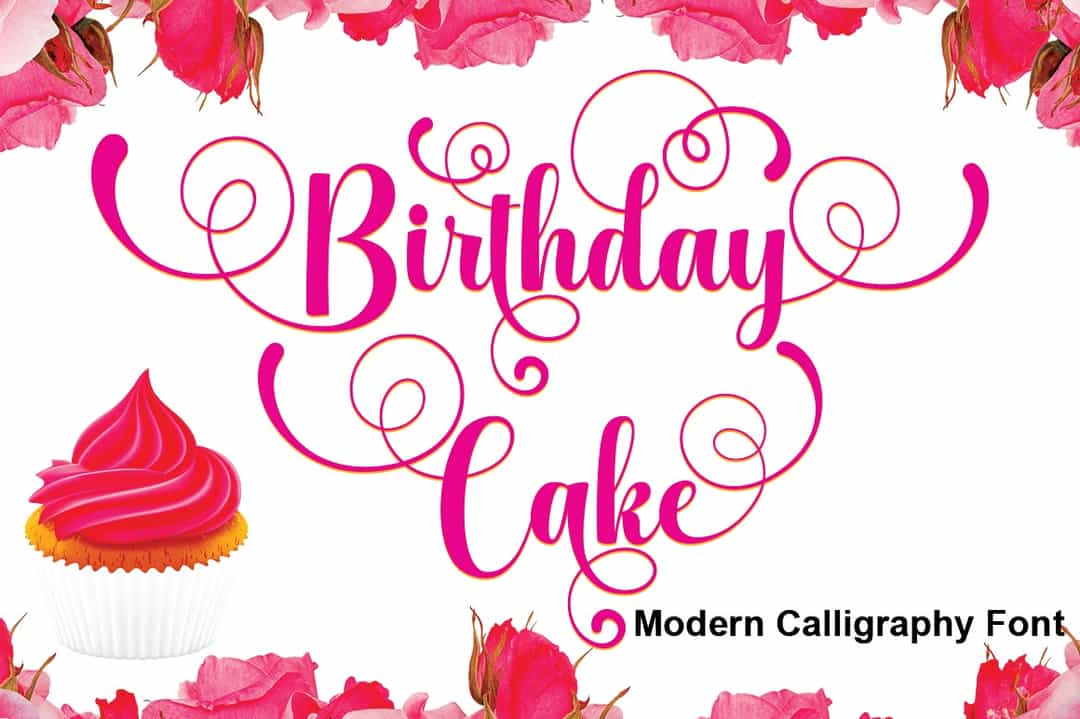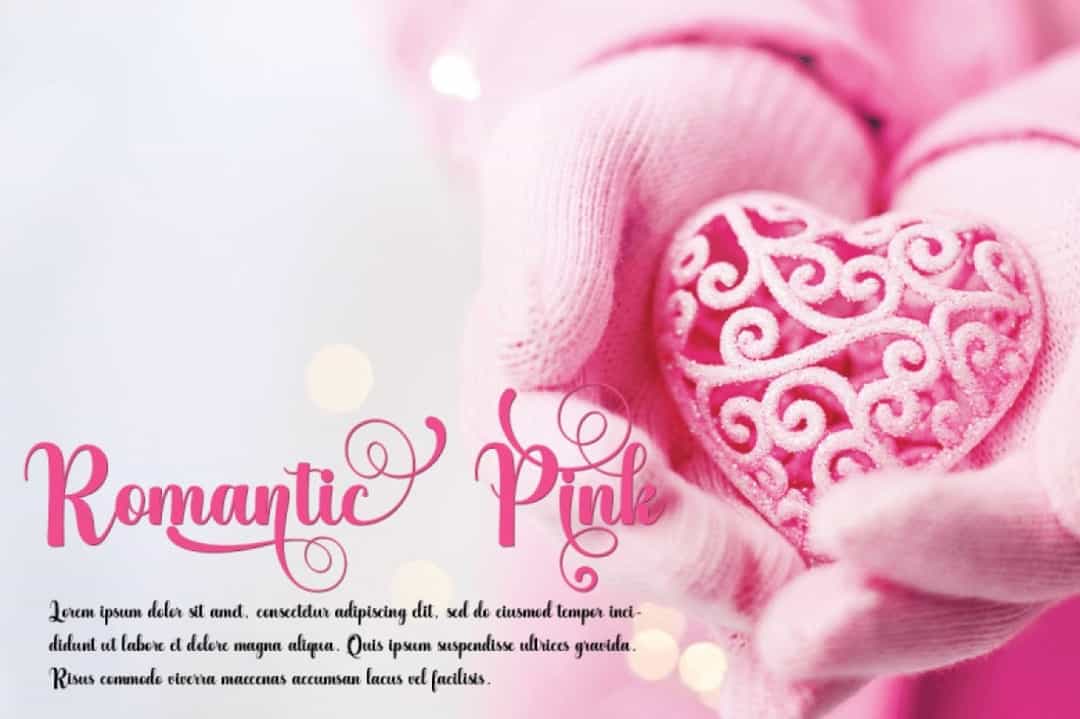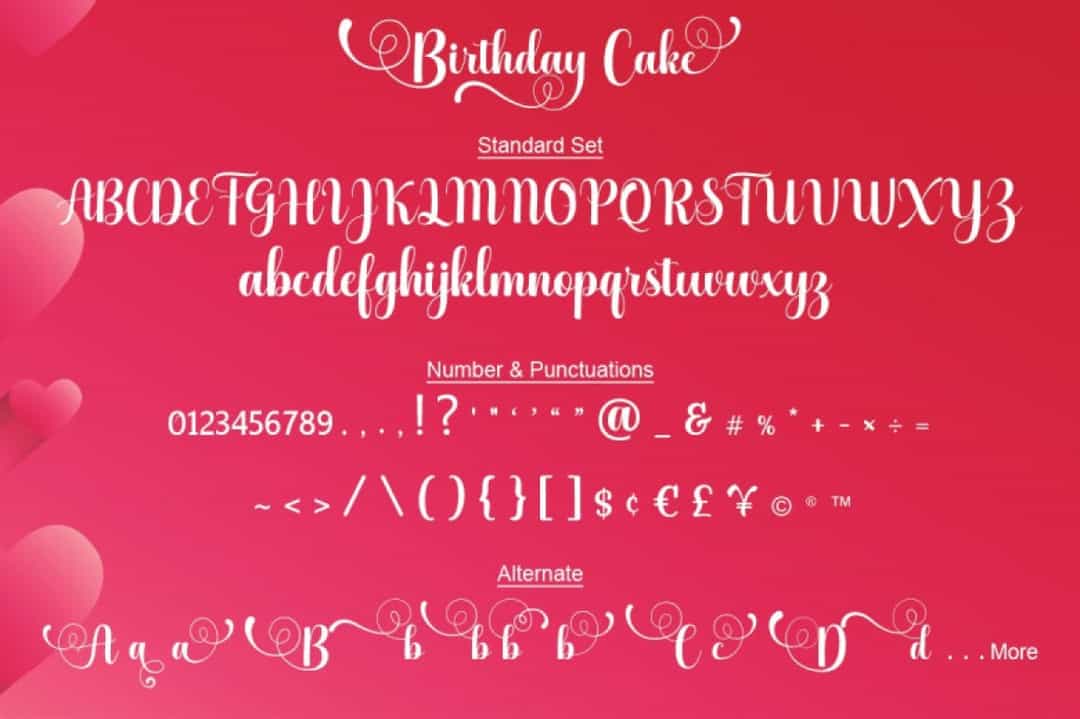
Birthday Cake is an exquisite script calligraphy font with modern and elegant design elements that makes an impressive impression! Perfect for use in birthday invitations logos branding invitations stationery wedding designs apparel branding and so much more.